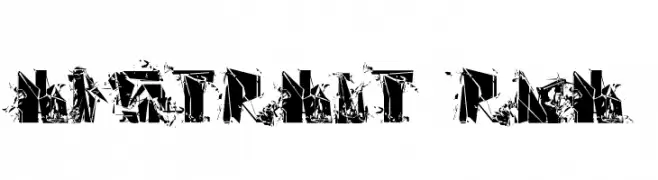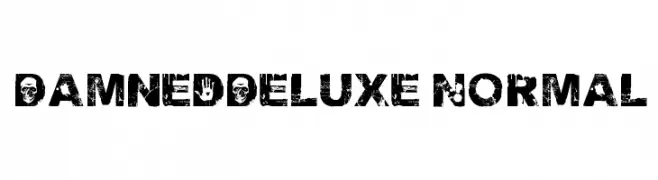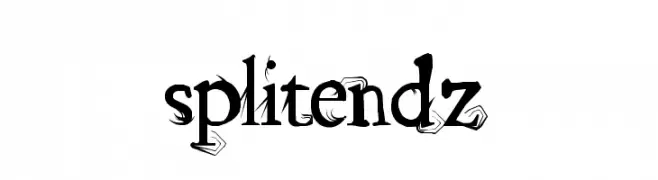
( Fonts by billyargel.blogspot.com - Billy Argel )
A bold, hand-painted style font with an expressive, artistic flair.
( Fonts by Kevin Christopher - www.kcfonts.com )
A bold, textured font with a rugged, organic appearance.
( Fonts by Andrew Hart - dirt2.com )
A grunge, distressed font with decorative elements and a bold, edgy style.
( Fonts by Kevin Christopher - www.kcfonts.com )
A distressed, grungy font with rough, textured edges and a chaotic appearance.
( Fonts by David Kerkhoff - www.hanodedphotography.com )
A bold, brush-stroke font with a chaotic and rebellious aesthetic.
( Fonts by Steve Cloutier - www.cloutierfontes.ca )
A bold, distressed font with a grunge aesthetic, featuring unique textures and edgy details.
( Fonts by Juan Casco - www.juancasco.net )
A distressed, grungy font with a raw, hand-drawn aesthetic.